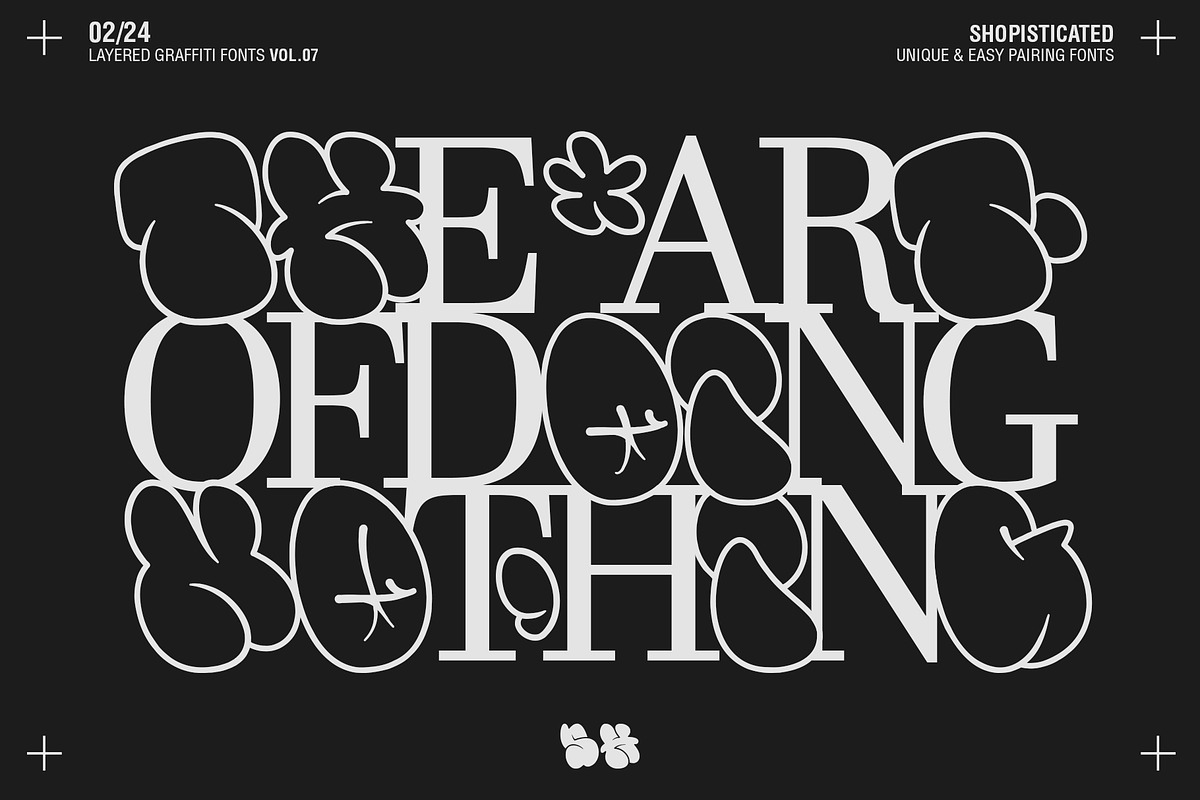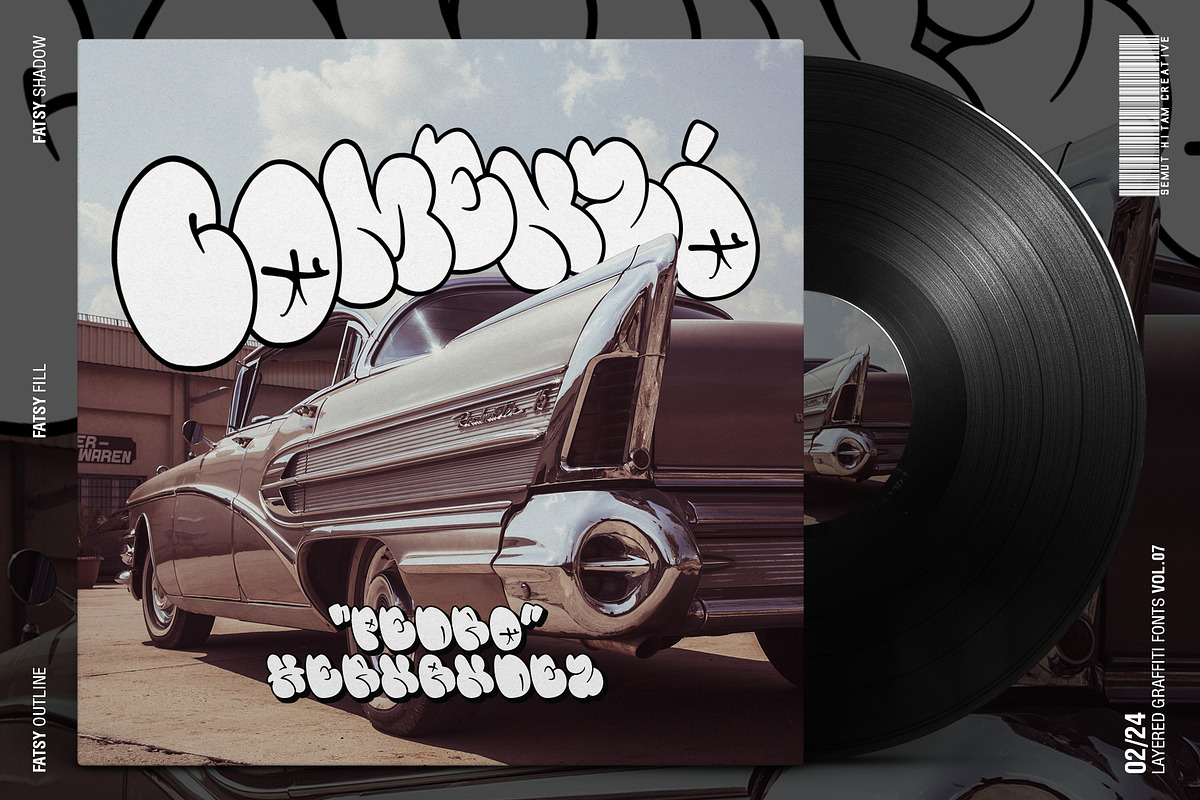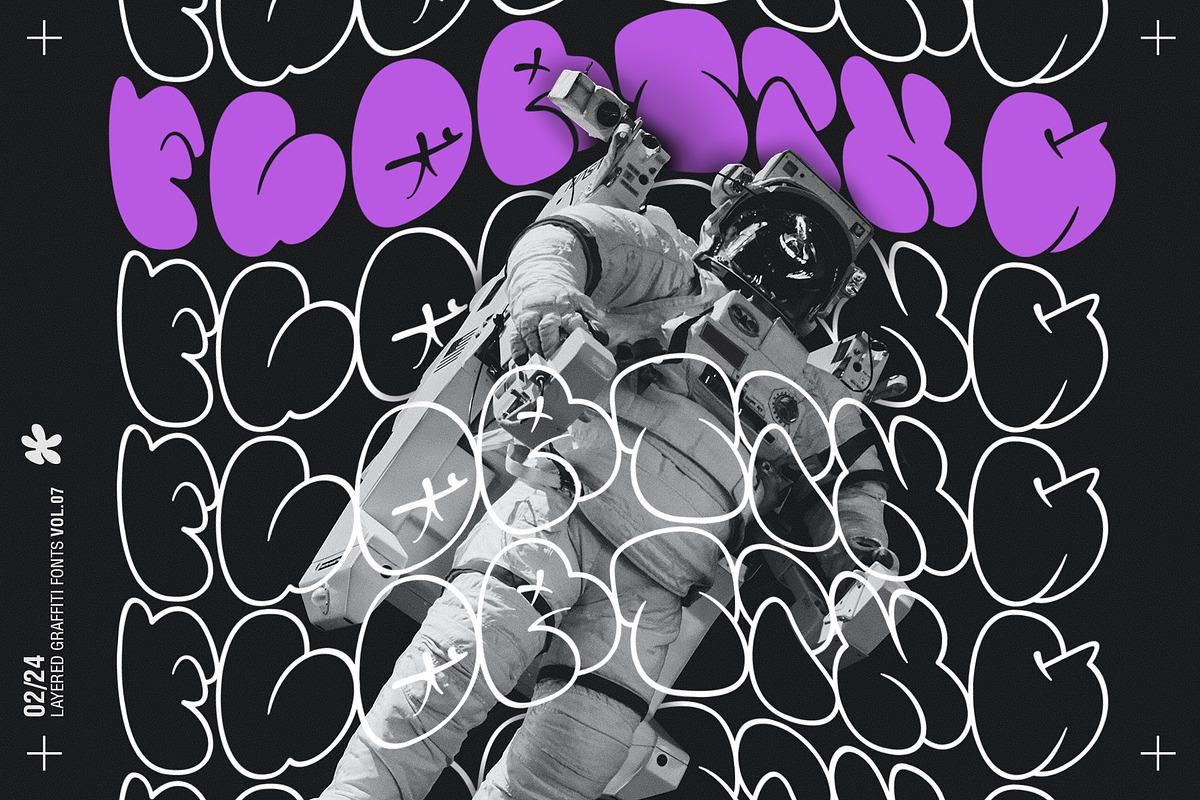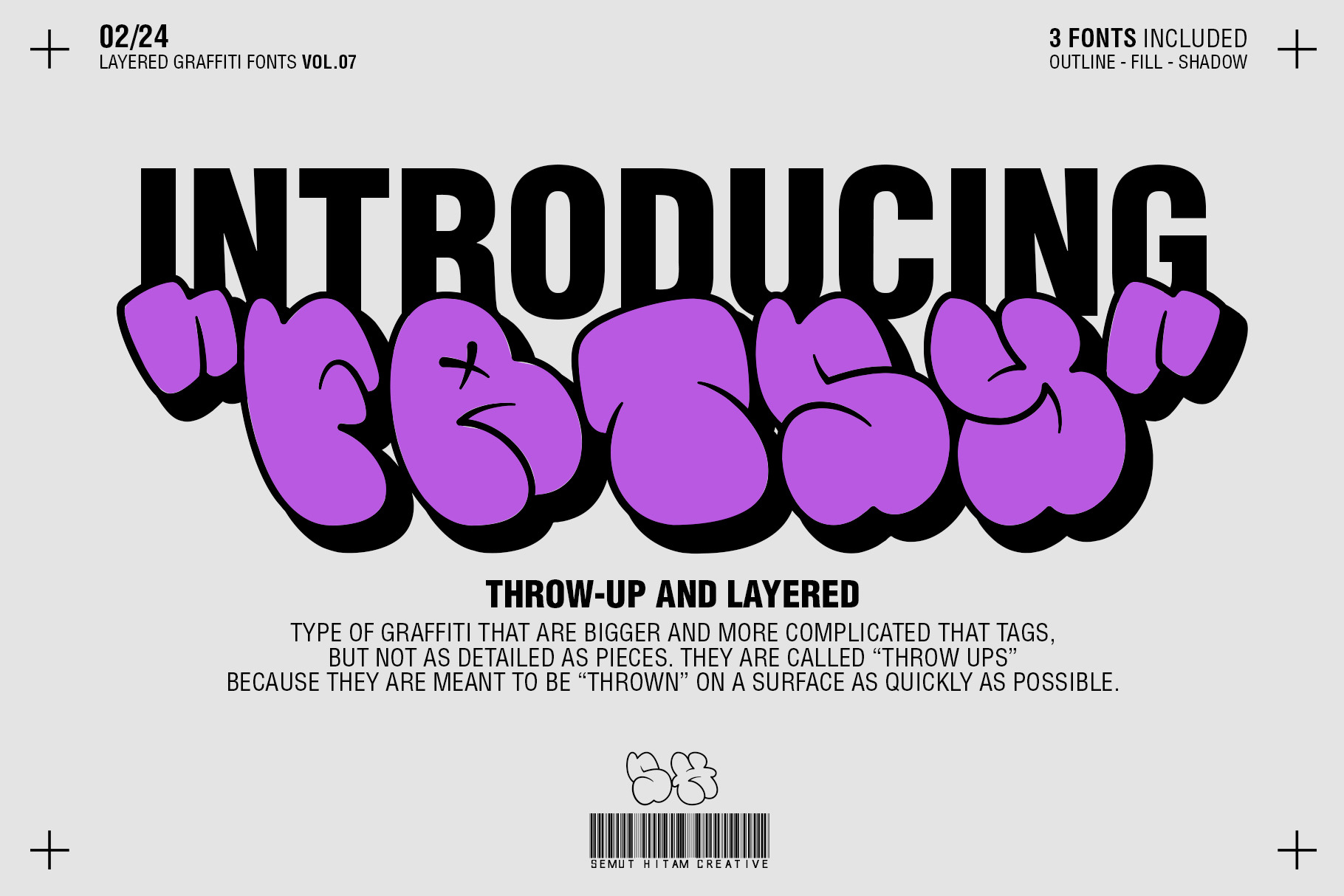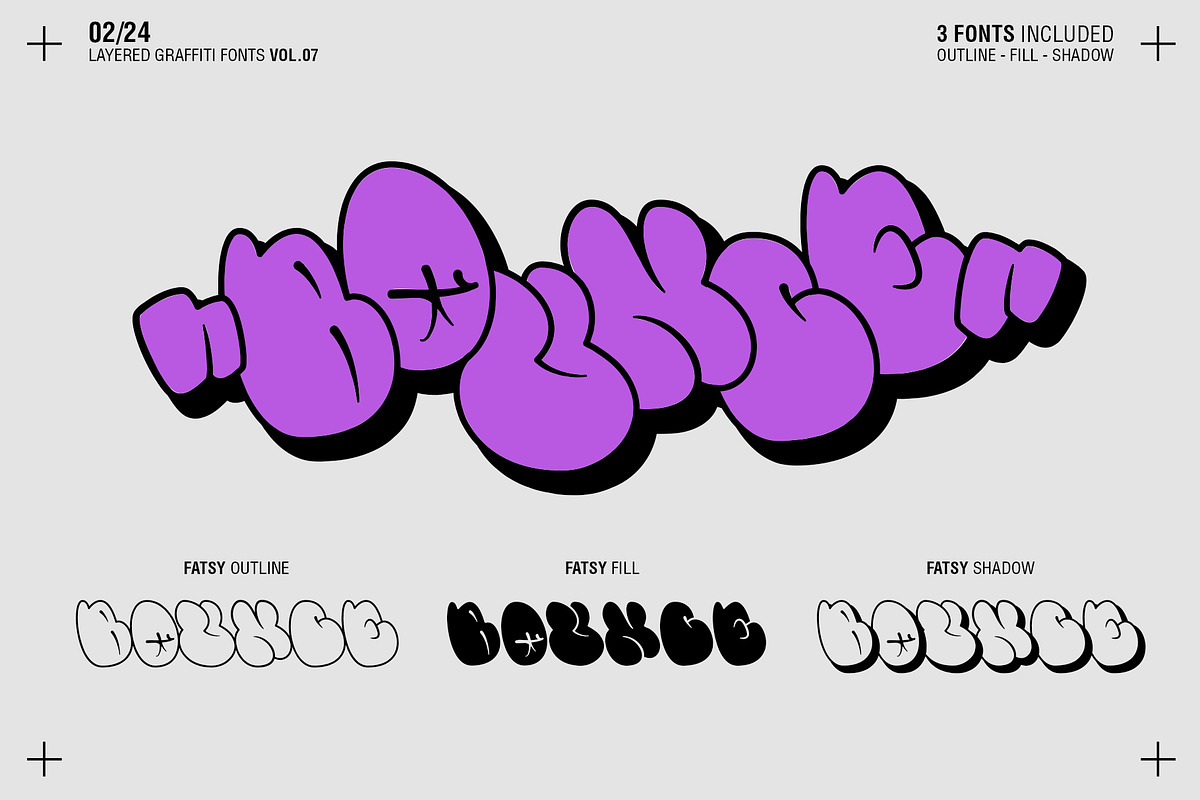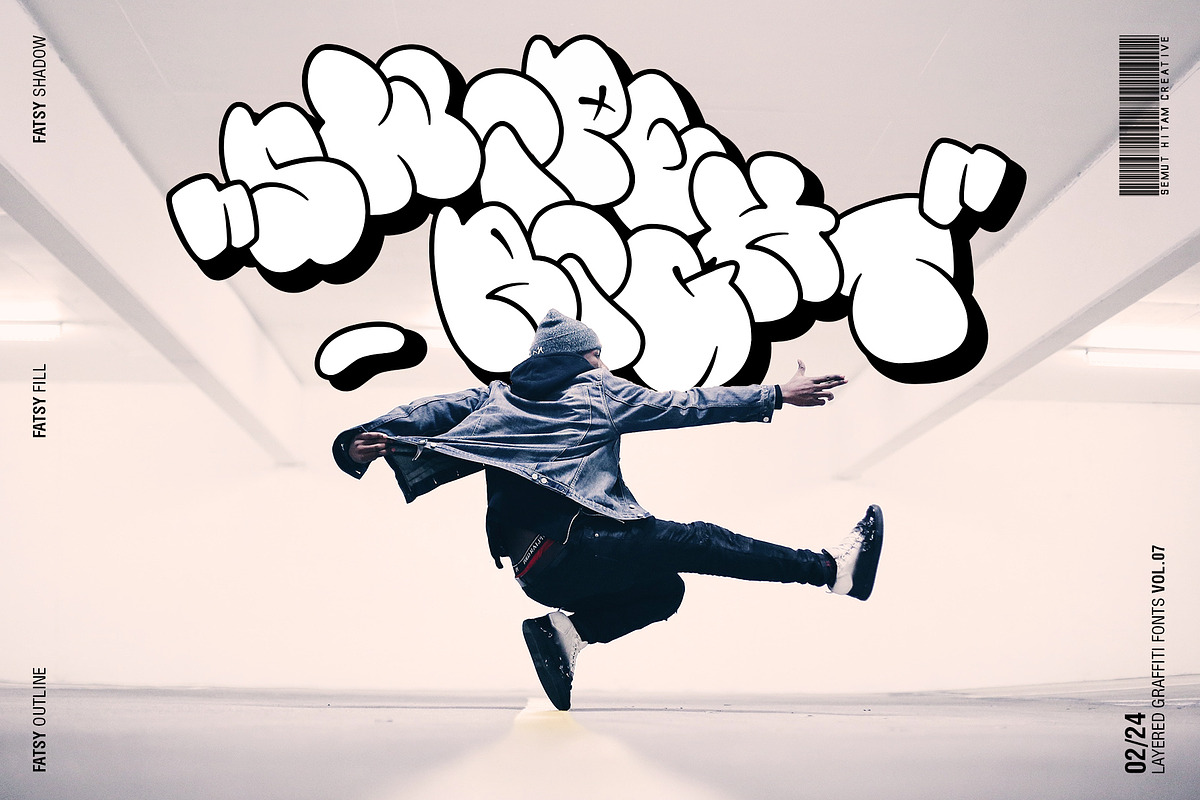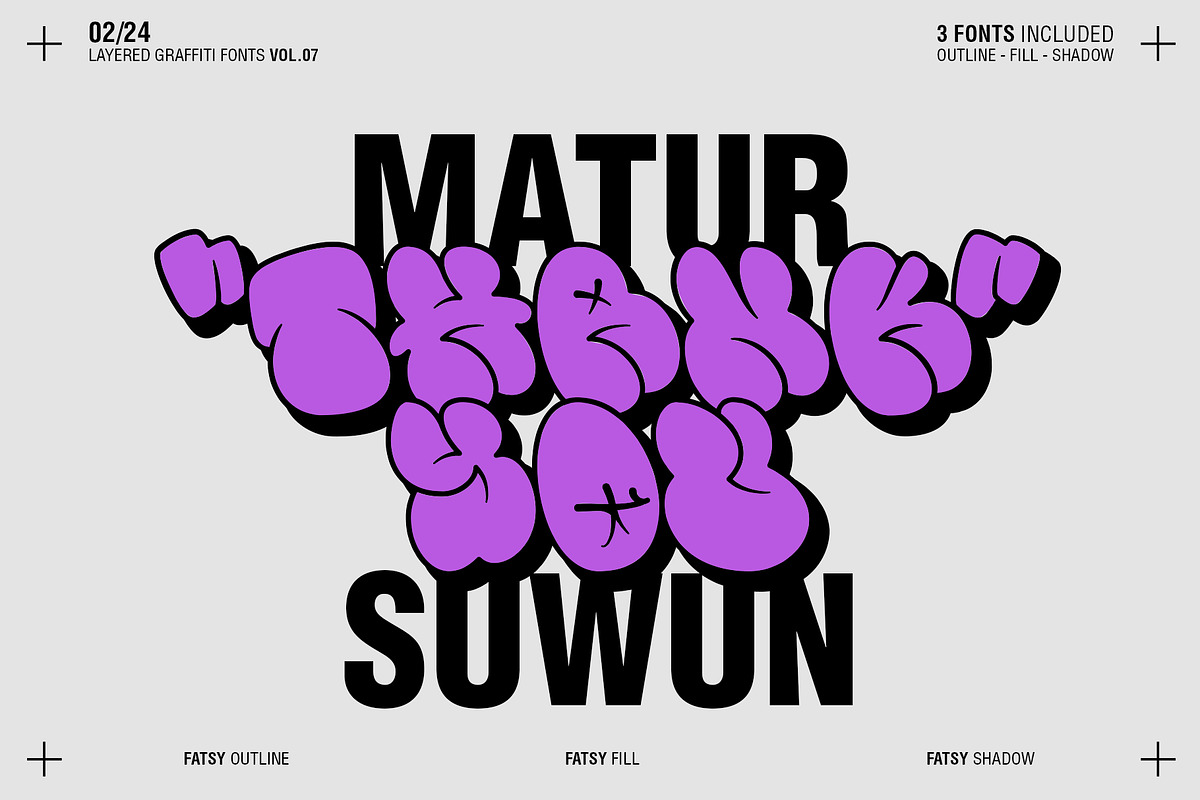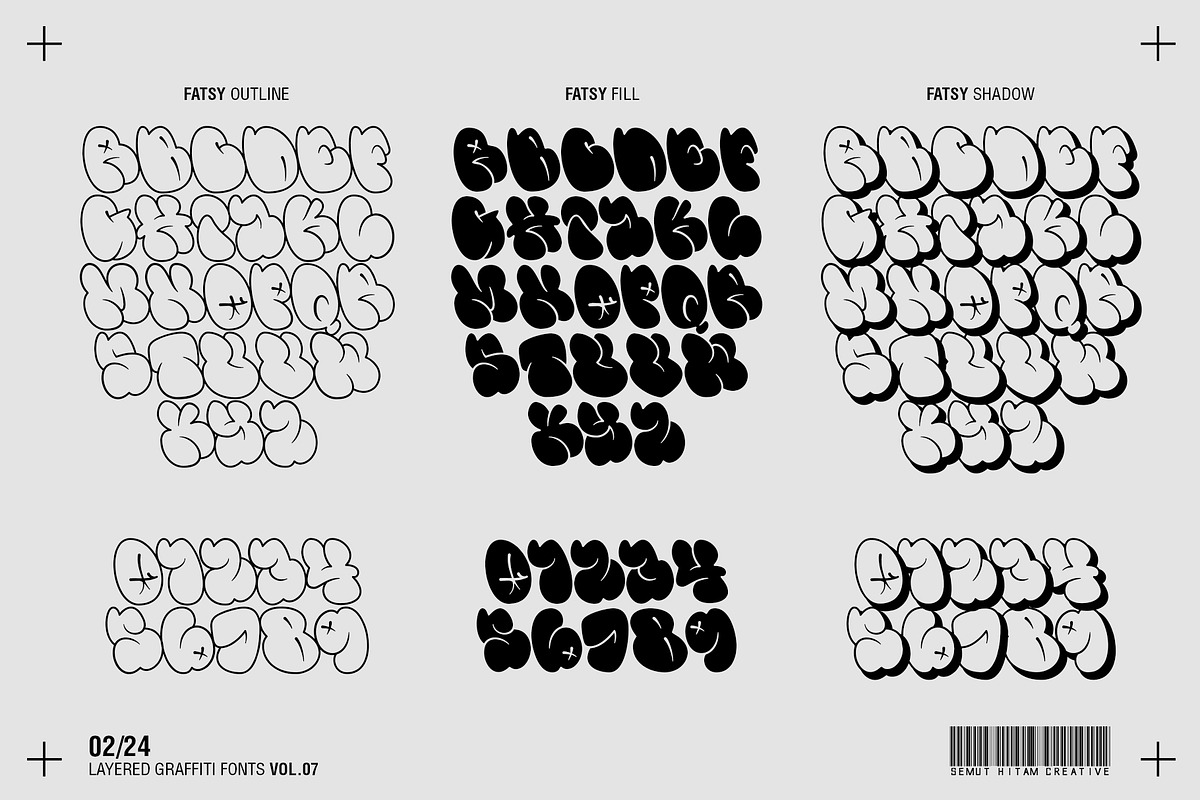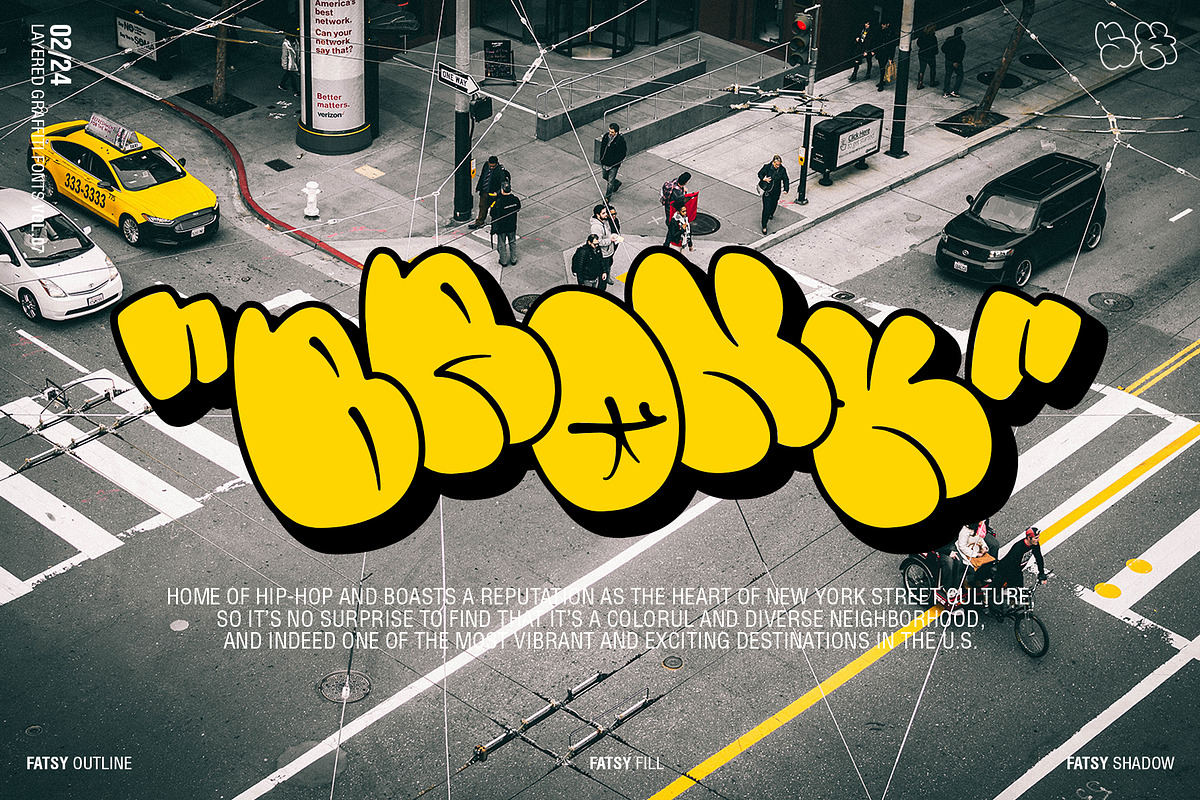
Fatsy - Layered Graffiti Fonts
Discover the bold and audacious personality of Fatsy, a graffiti-style font with a distinct layered charm. Drawing inspiration from the puffiness of bubble letters, often seen in true graffiti art, Fatsy embodies the essence of street art right on your digital canvas. A key characteristic of Fatsy is its thick outlines, lending a full-bodied, fat aesthetic that exudes prominence and assertiveness. Its versatility in layering saves you from the complex tasks of editing your artwork, allowing you more freedom to express your creativity. Fatsy is the perfect accomplice to all kinds of fonts, giving your projects a fresh, eclectic, and advanced appeal. Boasting a comprehensive set that includes funky uppercase, lowercase letters, numbers, punctuation, and support for multiple languages, Fatsy stands as a diverse and dynamic font ready to elevate your designs.